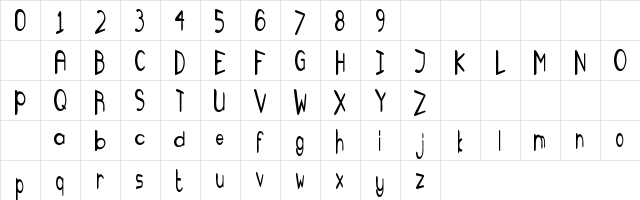
Complete TM fanzine fame Normal glyph index. Displaying only characters natively supported by TM fanzine fame Normal font.
TM fanzine fame is a composed and adaptable typeface that performs quietly and consistently across a wide range of design contexts.